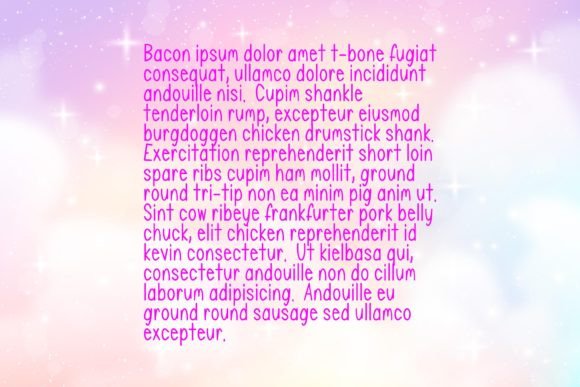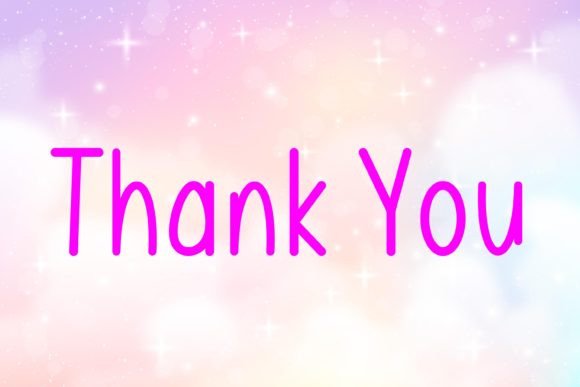
The Designer’s Delight: Ella Font
Ah, the quest for the perfect font! I still remember the time I was working on a wedding invitation project, and my client asked for a font that was both elegant and playful. I scoured the internet, tried out dozens of fonts, but nothing seemed quite right. That was until I stumbled upon Ella Font. This simple yet friendly handwritten font has been a game-changer for my designs, and I’m excited to share its charm with you!
A Personal Review: What I Love About Ella Font
So, what makes Ella Font so special? Here are a few things that I absolutely love:
- ✨ Whimsical and quirky: Ella Font has a unique personality that adds a touch of whimsy to any design.
- ✅ Easy to read: Despite its playful nature, Ella Font is surprisingly easy to read, making it perfect for body text.
- 💕 Versatile: From logos to wedding invitations, quotes to advertisements, Ella Font adapts seamlessly to various design projects.
While Ella Font is an excellent choice, it’s not without its quirks. Here are a few things to keep in mind:
- 🤔 Limited formal use: Ella Font’s playful nature may not make it the best fit for very formal or corporate designs.
- ⚠️ Glyph limitations: While Ella Font has a range of glyphs and OpenType features, it may not have every special character you need.
- Experiment with OpenType features like ligatures and stylistic alternates to add visual interest.
The Story Behind Ella Font
Ella Font was designed with the intention of creating a friendly, approachable typeface. Inspired by the elegance of handwritten scripts and the playfulness of modern fonts, Ella Font is the brainchild of a talented designer who sought to craft a font that would bring joy to designers and their clients. While the designer’s story might be fictional, the font’s charm is undeniable.
| What type of designs is Ella Font best suited for? | Ella Font is perfect for logos, wedding invitations, quotes, advertisements, print, magazines, and more! |
| Is Ella Font easy to read? | Yes, despite its playful nature, Ella Font is surprisingly easy to read. |